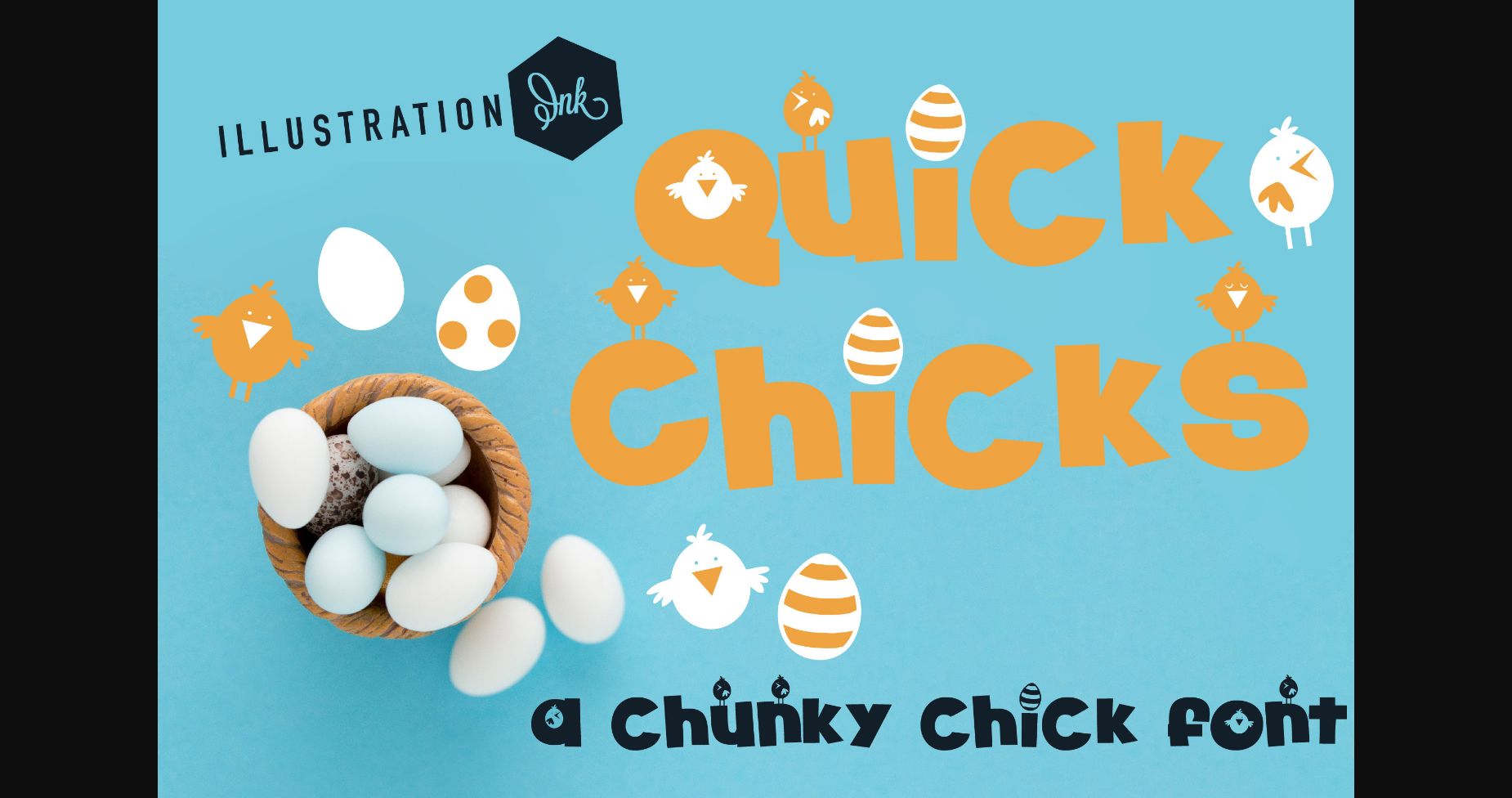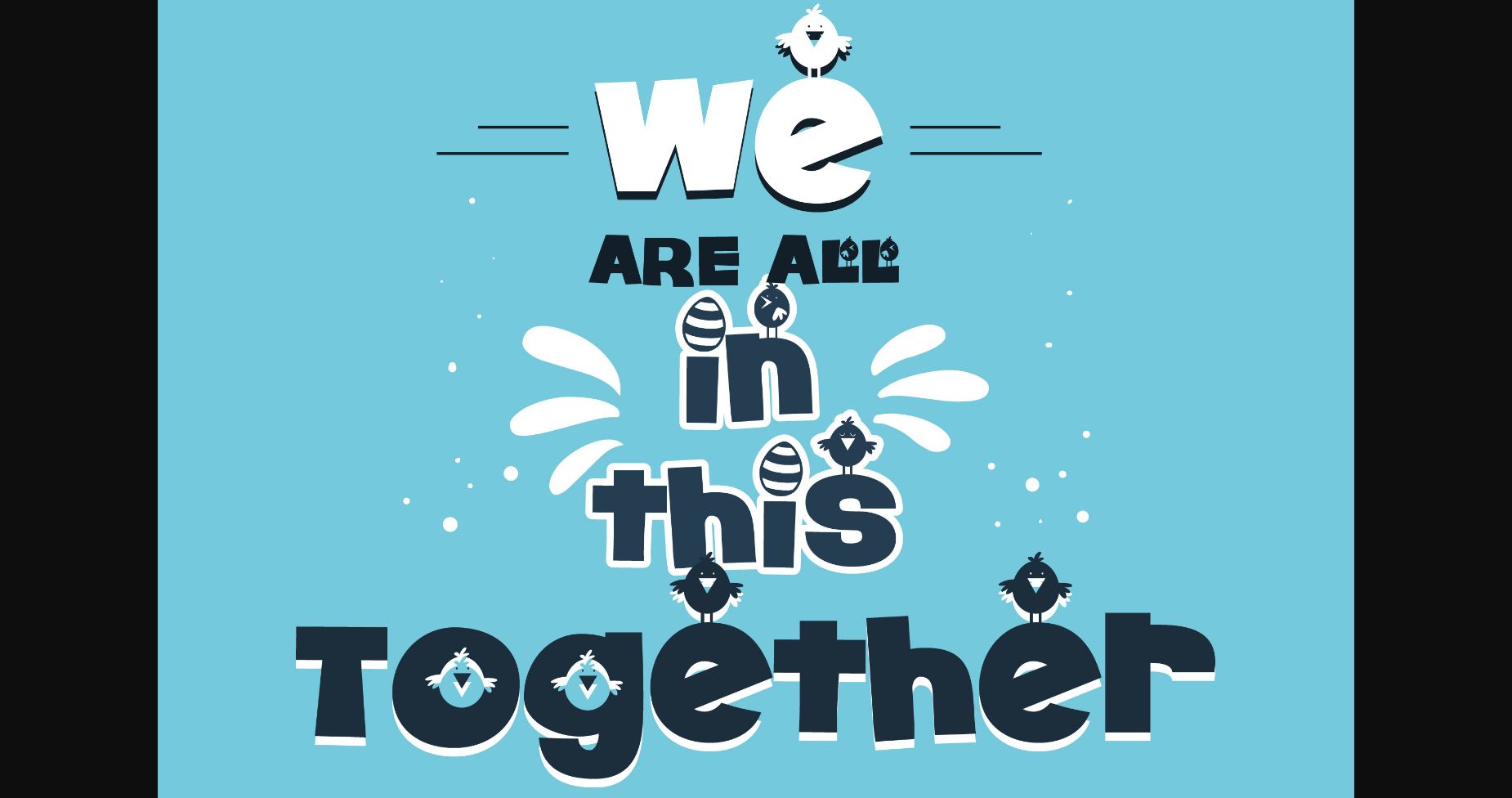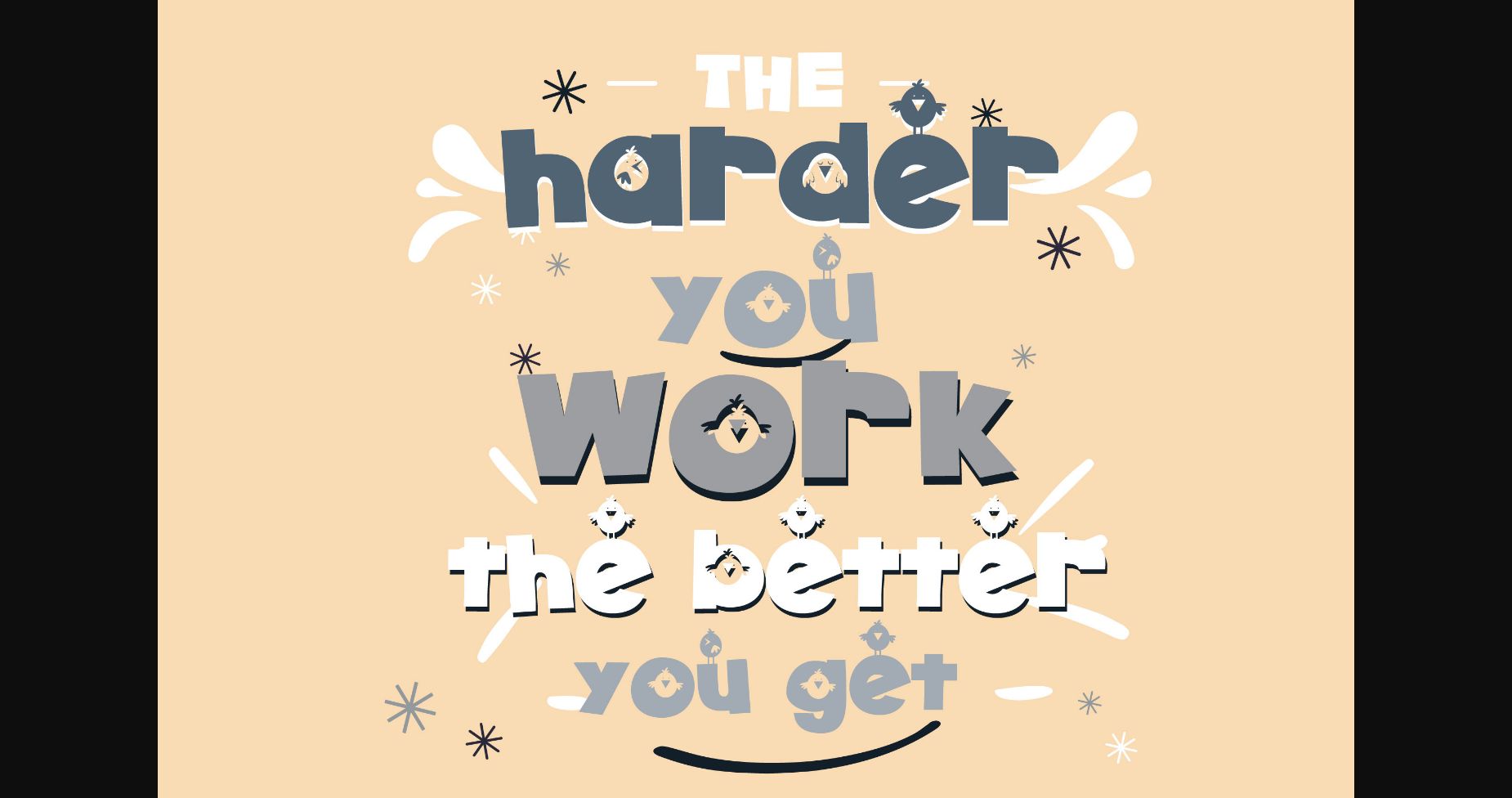
About Quick Chicks Font
Quick Chicks is an attractive and distinctive option that’s perfect for designs that need a youthful touch. Its bold lines and unique letter shapes give it an energetic and modern feel, while its clean design makes it easy to read. The letters work together seamlessly, creating a cohesive and eye-catching look.